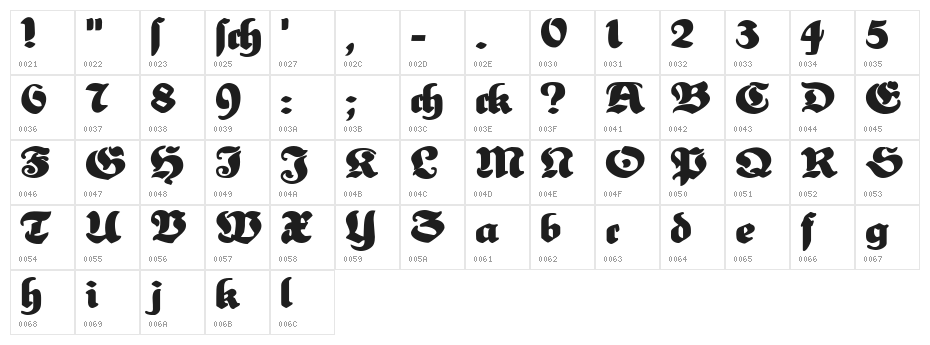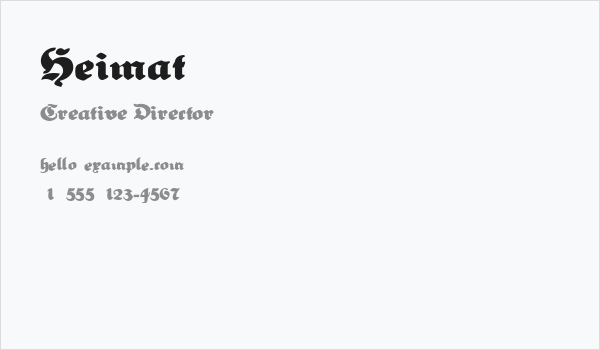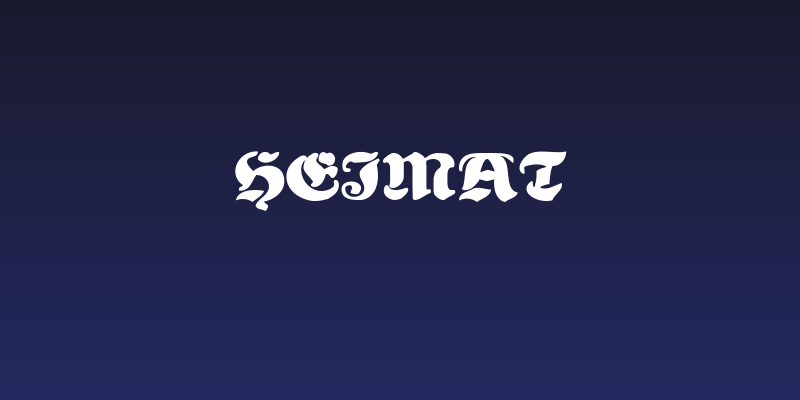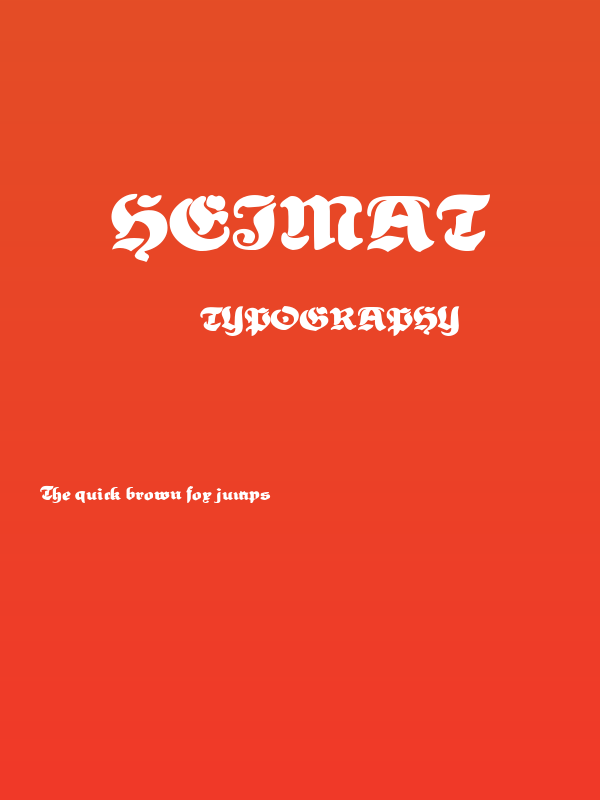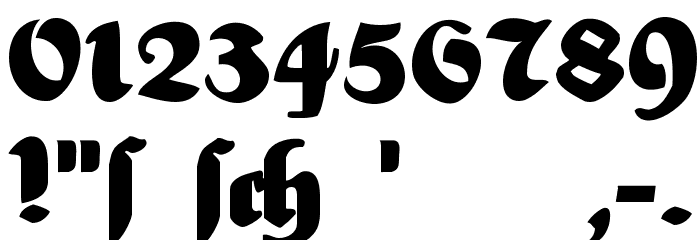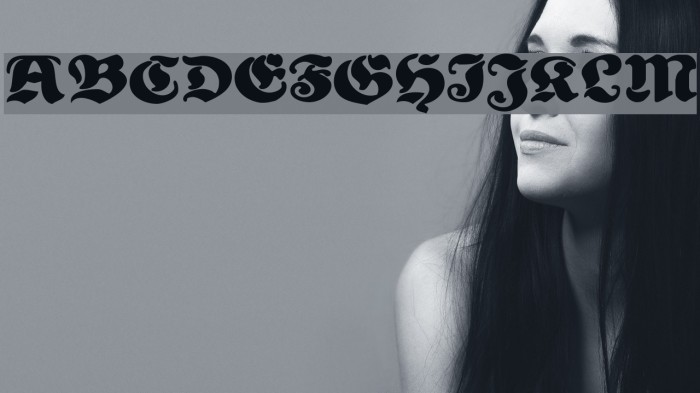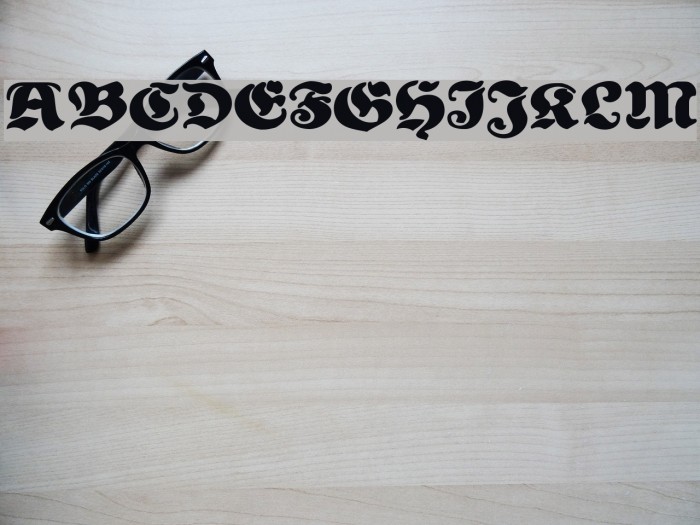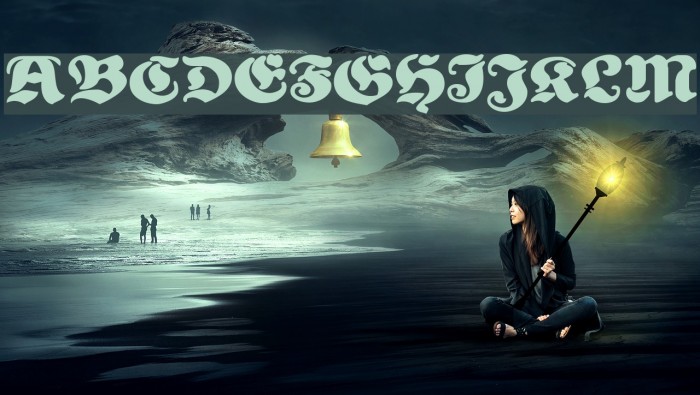
Heimat Font
Heimat Description
This font is a striking example of Blackletter style, characterized by its dramatic and intricate design. The letters are bold and ornate, with sharp angles and elaborate flourishes that give it a historic and traditional feel. The uppercase letters are particularly decorative, featuring unique embellishments that enhance their visual impact. The lowercase letters maintain the same level of detail, ensuring consistency across the typeface. Numbers and special characters are equally stylized, contributing to the font's cohesive appearance. This font is ideal for projects that require a touch of elegance and historical authenticity.
| Overall Style | Vintage |
| Use Case | Headlines, Logos, Decorative text |
| Proposed Projects | Suitable for certificates, invitations, historical documents, branding for luxury products, and decorative headlines. |